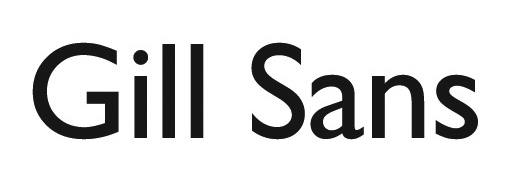
Why Fonts Matter
In excerpts from Why Fonts Matter by Sarah Hyndman, this article explains the psychological effects of fonts on the reader, for the purpose of helping you use type more effectively.
Editor’s Note: Fonts aren’t people, but they sure do have personalities. And voices. They speak to us in ways that can enhance or undermine the meaning of our text. Understanding what messages your font choices are sending is an essential step in achieving great typography. The following article is comprised of excerpts from Why Fonts Matter, by Sarah Hyndman. It explains the psychological effects of fonts on the reader, for the purpose of helping you use type more effectively.
Type is evocative
There is more to type than just being an invisible transmitter of words. The different shapes and styles of the typefaces themselves stimulate responses independently of the words they spell out, and before we even read them.
Type triggers our imaginations, evokes our emotions, prompts memories, and links to all of our senses (Figure 1).
Figure 1
We automatically recognize attributes from the physical world, like how loud it looks, whether it is heavy or light, fast or slow, or what it would feel like to touch. We have also learned a great deal from our shopping experiences, which include knowing whether something is expensive, aimed at children, or how it might taste.
It is easy to measure how readable a font is, but it is less straightforward to measure how it makes people feel. As a result, there is less public-domain research in this area, and much of what we know as designers comes from personal observation and experience.
How do fonts influence you?
Is type
a conspiracy? Does it coerce you with secret messages hidden from view? No, far from it. Type appears right in front of your eyes and is clear for you to see. It is your choice not to pay attention to it consciously and to focus on reading what the words actually say. The type itself is still transmitting plenty of information, but it is communicating it directly to your subconscious (Figure 2).
Figure 2
Through the looking-glass
Typefaces/fonts prime you with a great deal of information and set the scene for the words you are about to read. They give words a backstory, a personality, clue you in to whether or not you can trust them, whether they will be serious or light-hearted, academic or childish. Generally, well-set type is designed so that you “look past” the typeface and focus on the words themselves—unless, of course, the font does not match, like somebody with a bad haircut or a miscast actor in a film.
At any time, you can choose to become consciously aware of the messages the fonts themselves are communicating. In Figure 3, the red words simply give the name of each typeface, whilst the blue words in “mirror writing”2 suggest what they could be saying directly to your subconscious brain. Hold the book up to a mirror to reveal what the blue words are spelling out.
Figure 3
Type karaoke
Play the game of Type Karaoke by simply saying what you see. Try it out on friends, family or, for an energetic response, with a group of children (Figures 4 and 5).
Figures 4 and 5
Type can function as a human-voice transmitter and convey the tones and qualities of your voice visually. We each have a unique voice that communicates a great deal about us, like our gender and age. It charts where we come from, whom we know, and where we have lived along the way. Could your voice look like the traditionally British and approachable Gill Sans, or the more intellectual Caslon?
Graphic designer Ellen Lupton describes typography as “what language looks like.”3 If you imagine that your voice is the typeface, then your vocal range is created by the sizes, styles, and weights of fonts within that typeface family and by how they are arranged on the page. Even a simple text message can be written expressively, from speaking very s l o w l y to SHOUTING. How do you feel when you receive a text or email written in all upper-case letters?
Clive Lewis and Peter Walker see the printed word as a visual code for speech that creates a permanent record of both (a) how the words sound when spoken, and (b) what they mean.4
In her famous 1930 essay5, Beatrice Warde compares typeface legibility to the human voice and suggests that if three pages were set in Fournier, Caslon, and Plantin typefaces it would be like “three different people delivering the same discourse—each with impeccable pronunciation and clarity, yet each through the medium of a different personality.”
Visual onomatopoeia
We all recognize instinctively that type mirrors qualities from the physical world, and understanding is consistently similar from one person to the next.